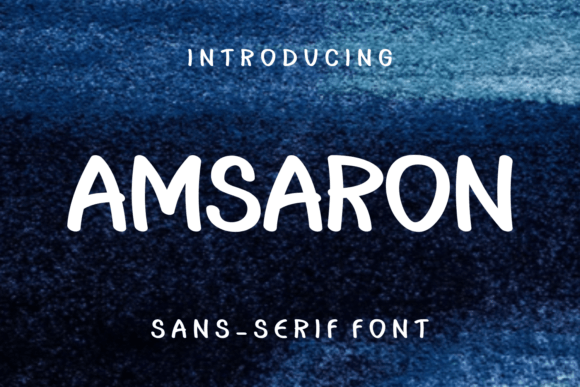
Behold, the captivating Amsaron Font - a sans serif masterpiece that will ignite your creativity and leave a lasting impression on your audience. Immerse yourself in its distinctive and timeless allure, and prepare to witness typography transformed into an art form.
Amsaron Font: Timeless Sophistication for Cover Letters that Command Attention
In a world where first impressions matter, your cover letter is your chance to make a statement. With Amsaron Font, you'll craft a document that exudes professionalism and confidence, leaving hiring managers eager to discover more about you. Its clean lines and elegant curves lend an air of sophistication that will elevate your application above the competition.
Make Your Words Dance with Unique Design Elements
Amsaron Font is not just another font; it's a visual symphony that captivates the eyes and engages the mind. Its meticulously crafted characters boast subtle variations in thickness, creating a dynamic rhythm that adds depth and personality to your text. Prepare to be amazed as your words transform into a captivating dance of shapes and forms, leaving readers mesmerized.
Express Your Individuality with Unparalleled Versatility
Amsaron Font is a chameleon of the font world, adapting seamlessly to a myriad of design styles. Whether you seek a classic and understated look or a bold and contemporary aesthetic, Amsaron Font will effortlessly complement your vision. Use it for cover letters, resumes, website design, social media graphics, or any project that demands a touch of elegance and distinction.
Experience Flawless Readability that Speaks Volumes
In the realm of typography, readability is paramount. Amsaron Font understands this and delivers text that flows effortlessly, ensuring your message is conveyed with crystal clarity. Say goodbye to eye strain and furrowed brows; Amsaron Font's carefully spaced characters and optimal kerning create a reading experience that is smooth, enjoyable, and utterly unforgettable.
A Font Crafted with Love, Just for You
Amsaron Font is not merely a collection of letters and symbols; it's a labor of love, meticulously designed to empower your creativity and make your words shine. Behind each stroke and curve lies the passion of its creator, lelevien, who poured their heart and soul into bringing this font to life. Experience the difference when you use a font that's made with love – you'll see it in the quality, feel it in the impact, and hear it in the compliments you receive.